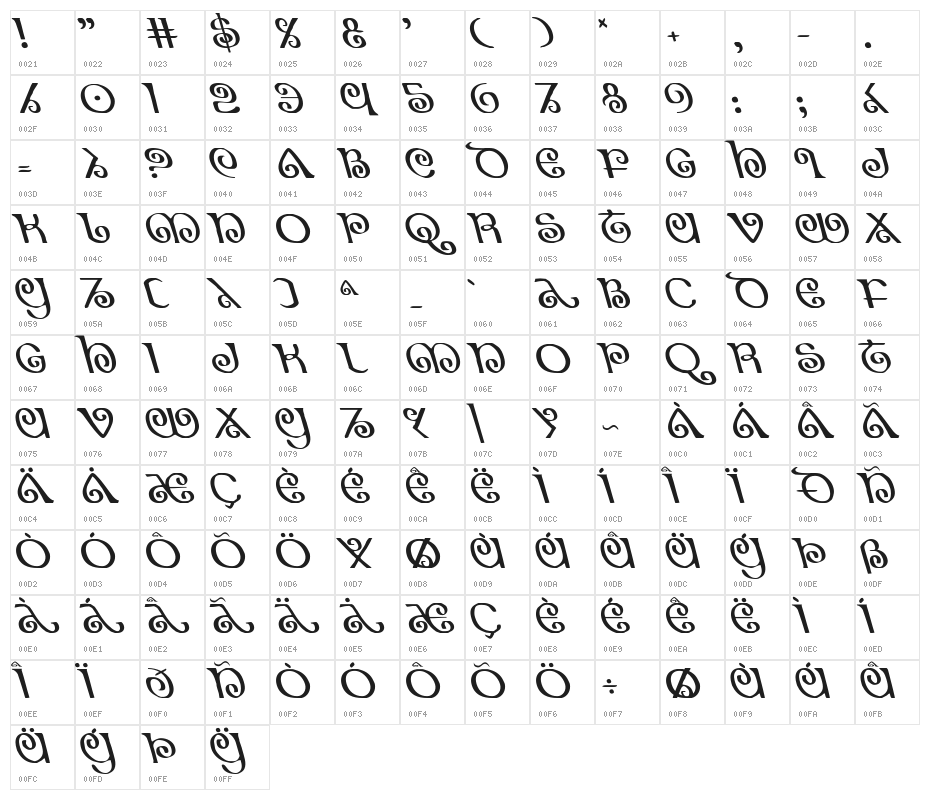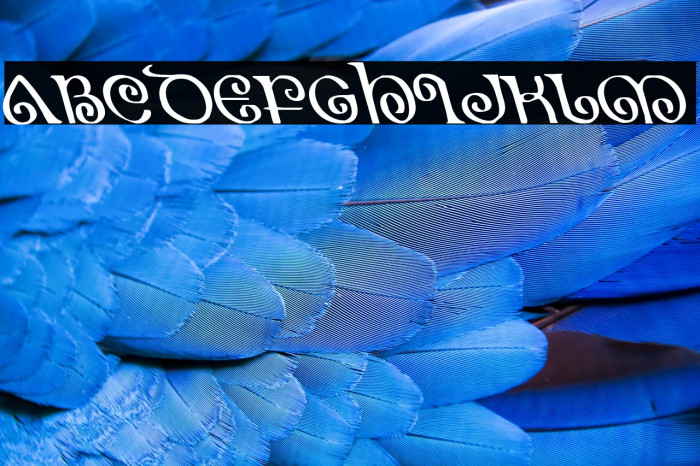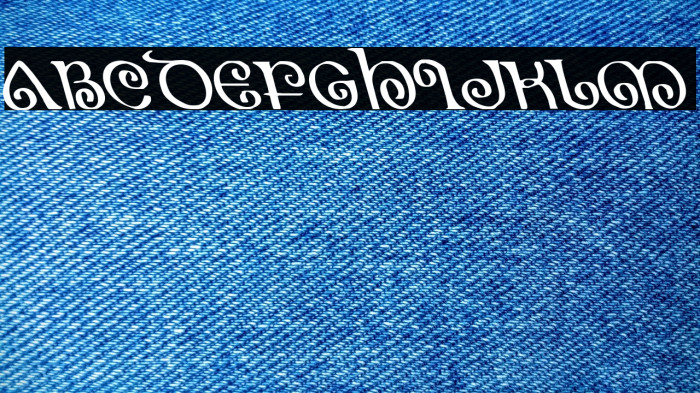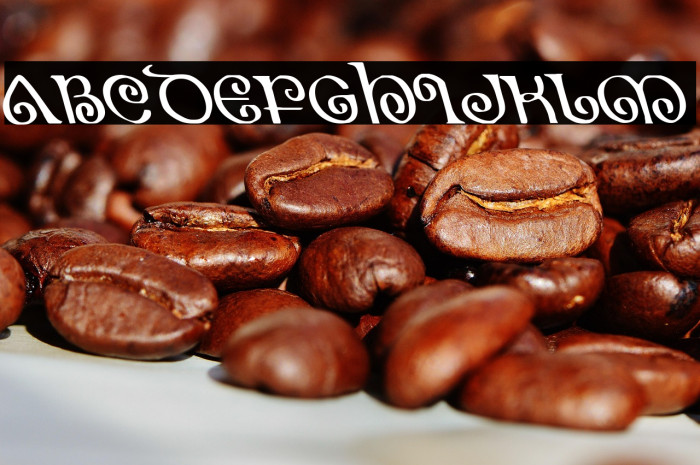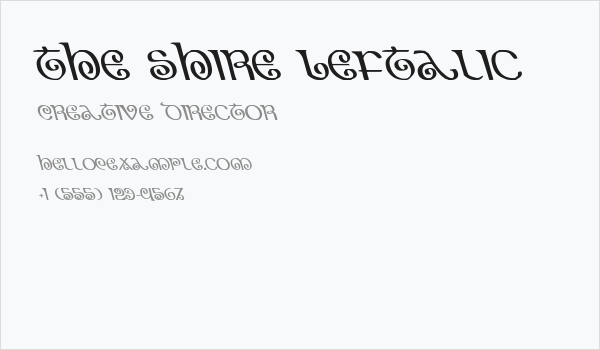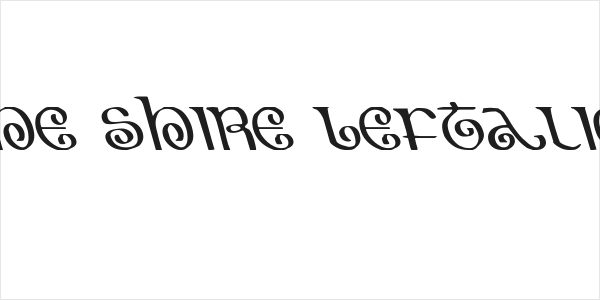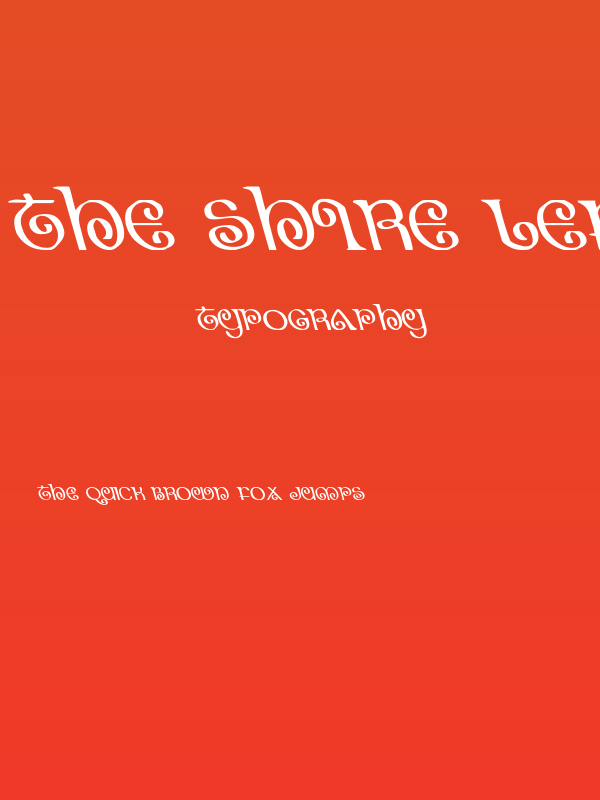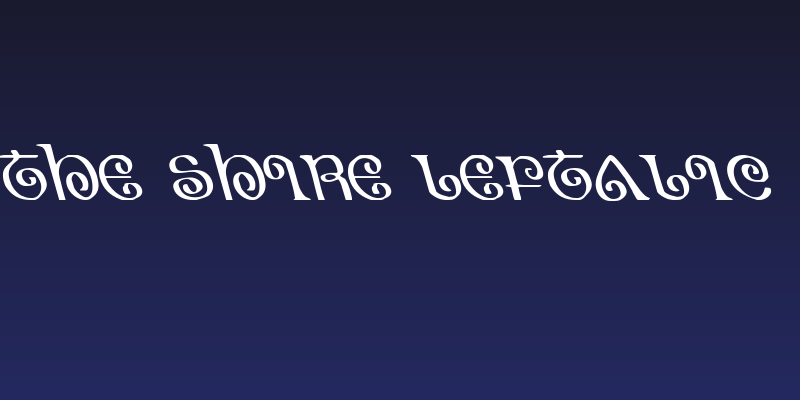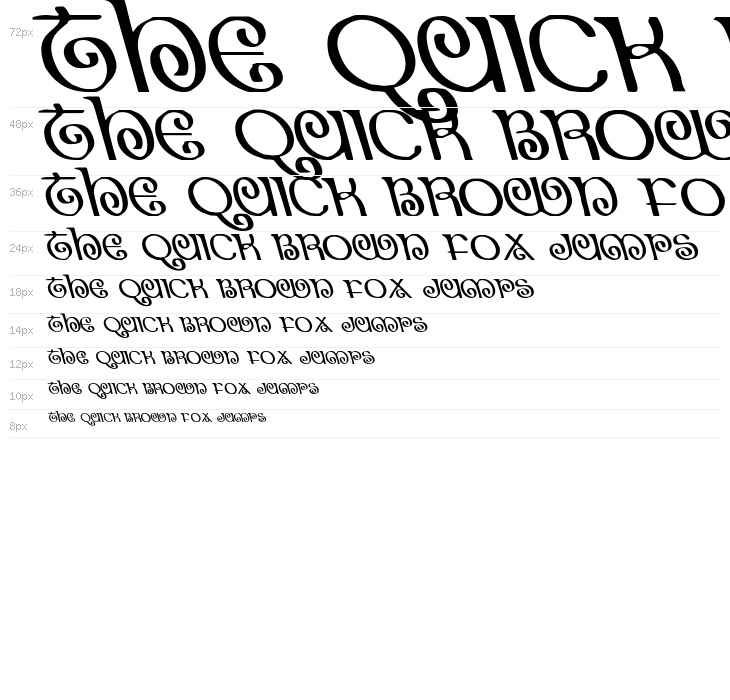
The Shire Leftalic Font
The Shire Leftalic Description
This font features a whimsical and decorative style with a distinct medieval flair. Each character is adorned with intricate swirls and curls, giving it an ornate and playful appearance. The uppercase and lowercase letters maintain a consistent design theme, with exaggerated curves and loops that enhance its unique aesthetic. The numbers and special characters follow the same decorative pattern, ensuring a cohesive look across all glyphs. This font's elaborate design makes it stand out, perfect for projects that require a touch of fantasy or historical charm.
| Proposed Projects | Ideal for fantasy-themed projects, book covers, invitations, and decorative headings. |